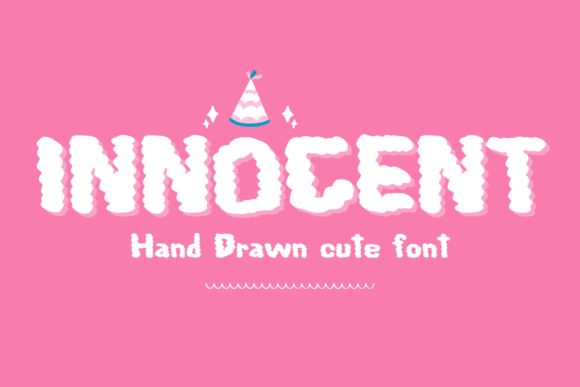
Introducing Innocent Font, the sweetest display font you'll ever come across! Created by k2cstudio, this font family is designed to captivate and mesmerize your audience with its curvy letters and playful dots. With Innocent Font, you can effortlessly infuse a touch of whimsy into any design, making it perfect for headlines, invitations, and anything that needs a bit of charm.
Innocent Font is not just a font, it's a magical experience that will elevate your web design to new heights. Its captivating appeal will instantly grab the attention of your users, leaving them spellbound and craving for more. Say goodbye to boring and mundane fonts and say hello to the enchanting world of Innocent Font.
Are you looking to create a website that stands out from the crowd? Look no further! Innocent Font is the secret ingredient that will make your website shine. Imagine your headlines and titles beautifully crafted with this font, effortlessly drawing your visitors in and keeping them engaged.
But Innocent Font is not just about aesthetics, it's also about functionality. Its versatility allows it to seamlessly blend with different design styles, ensuring that it never fails to impress. Whether you're aiming for a modern and sleek look or a vintage and nostalgic vibe, Innocent Font has got you covered.